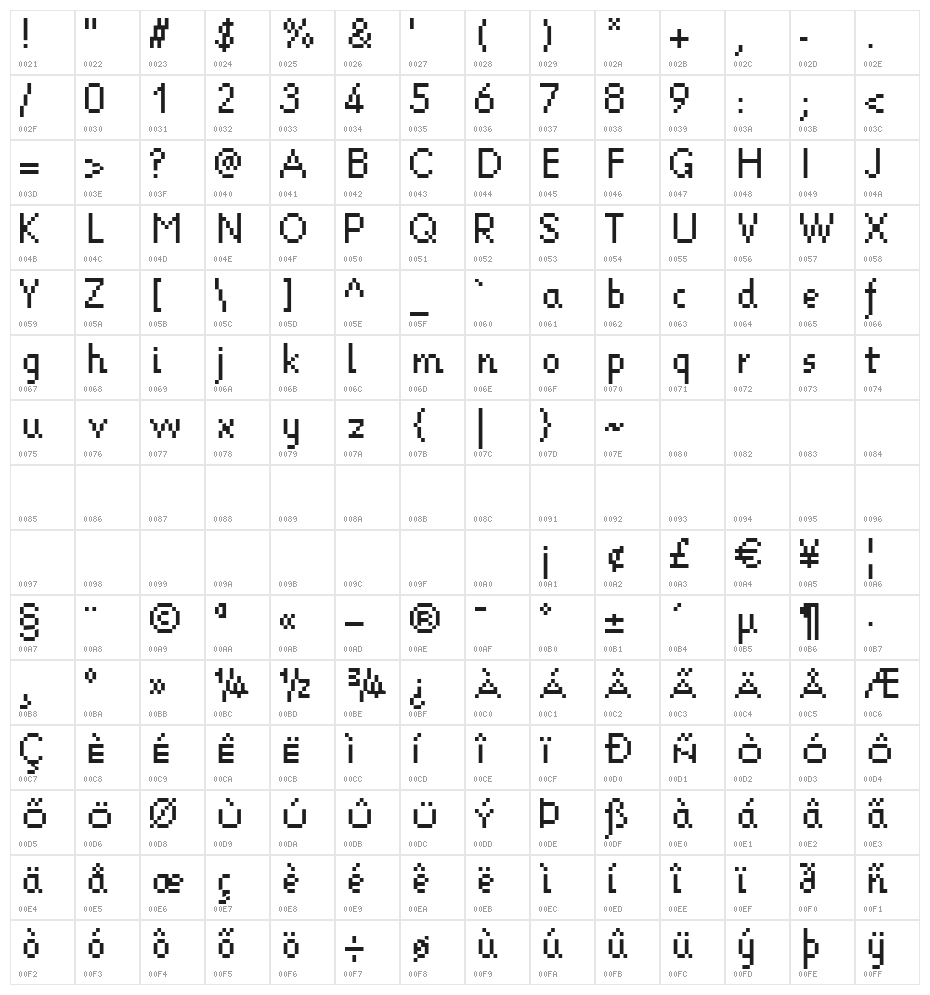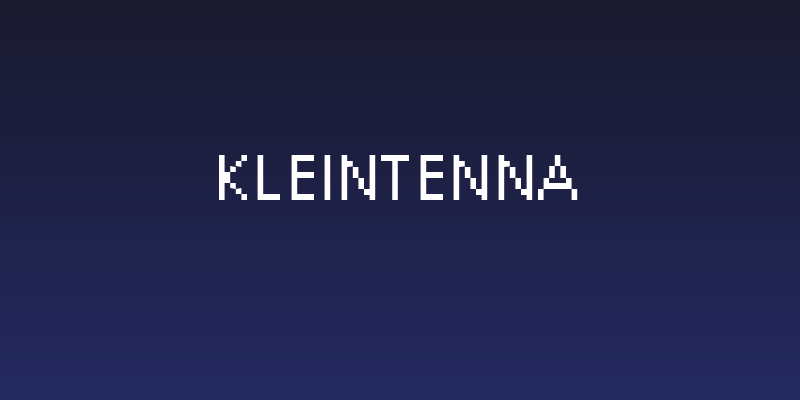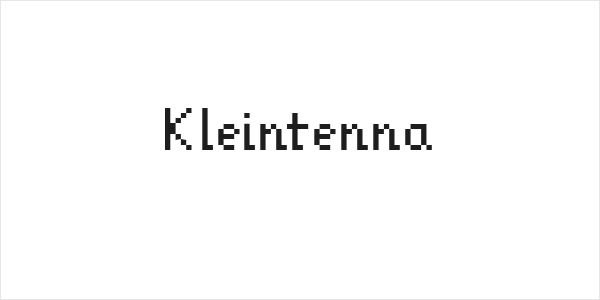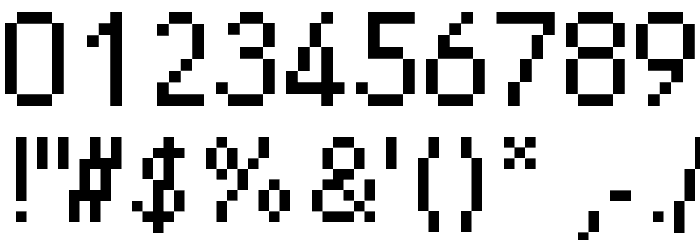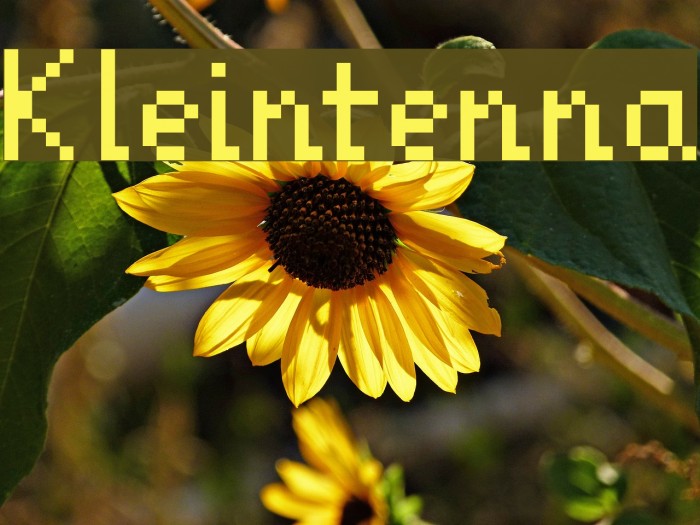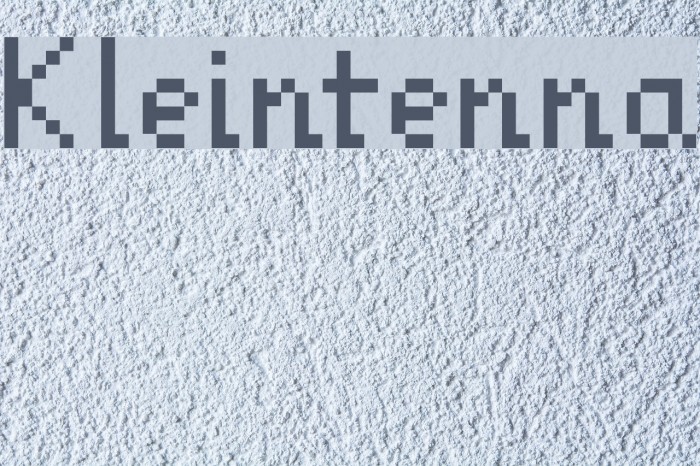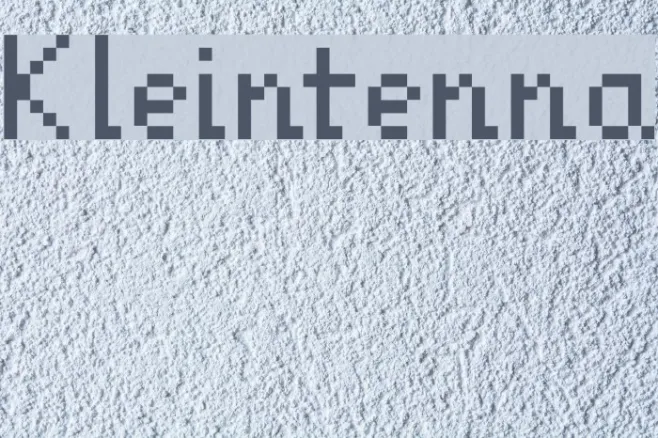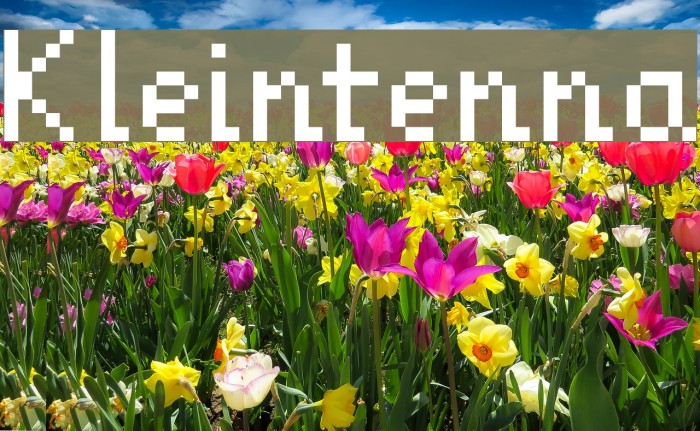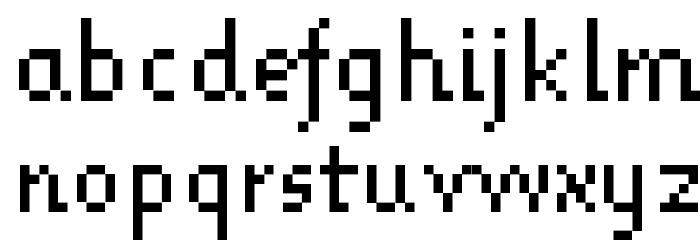
Kleintenna Font
Kleintenna Description
This font features a pixelated, blocky design reminiscent of early digital displays and retro video games. Each character is constructed with a grid-like precision, giving it a distinctly digital and geometric appearance. The uppercase and lowercase letters maintain a consistent height and width, contributing to a uniform look. Numbers and special characters follow the same pixelated style, ensuring cohesion across all glyphs. The font's simplicity and clarity make it highly legible, even at smaller sizes, while its nostalgic aesthetic evokes a sense of vintage computing.
| Use Case | Headlines, Logos, Digital Art |
| Proposed Projects | Ideal for retro-themed designs, video game graphics, digital art projects, and any creative work that seeks to evoke a sense of nostalgia for early computing. |